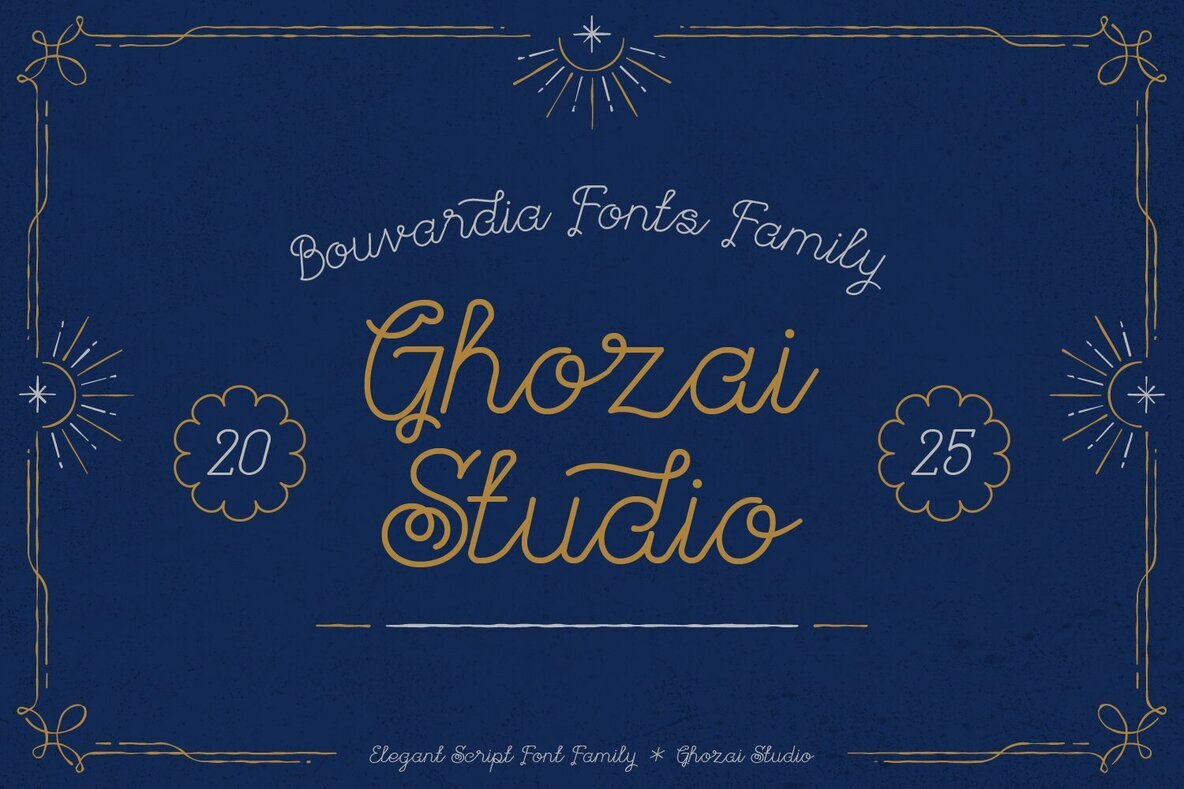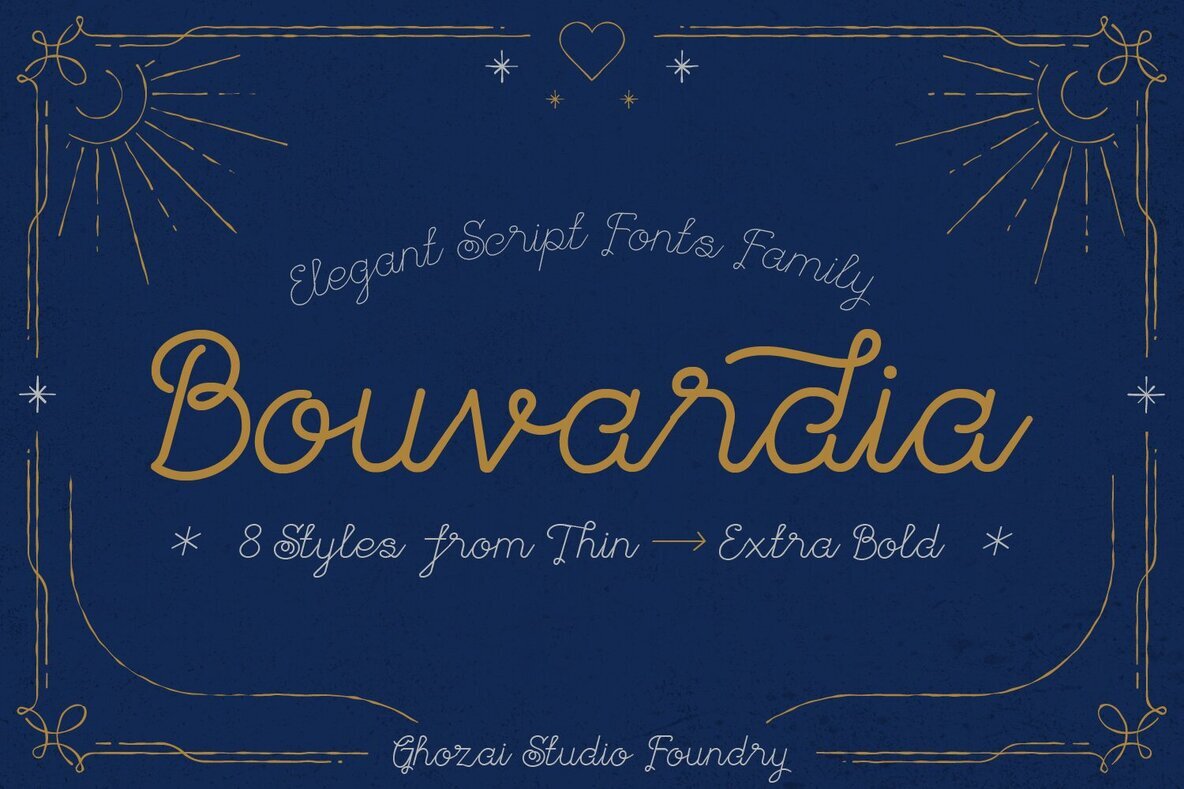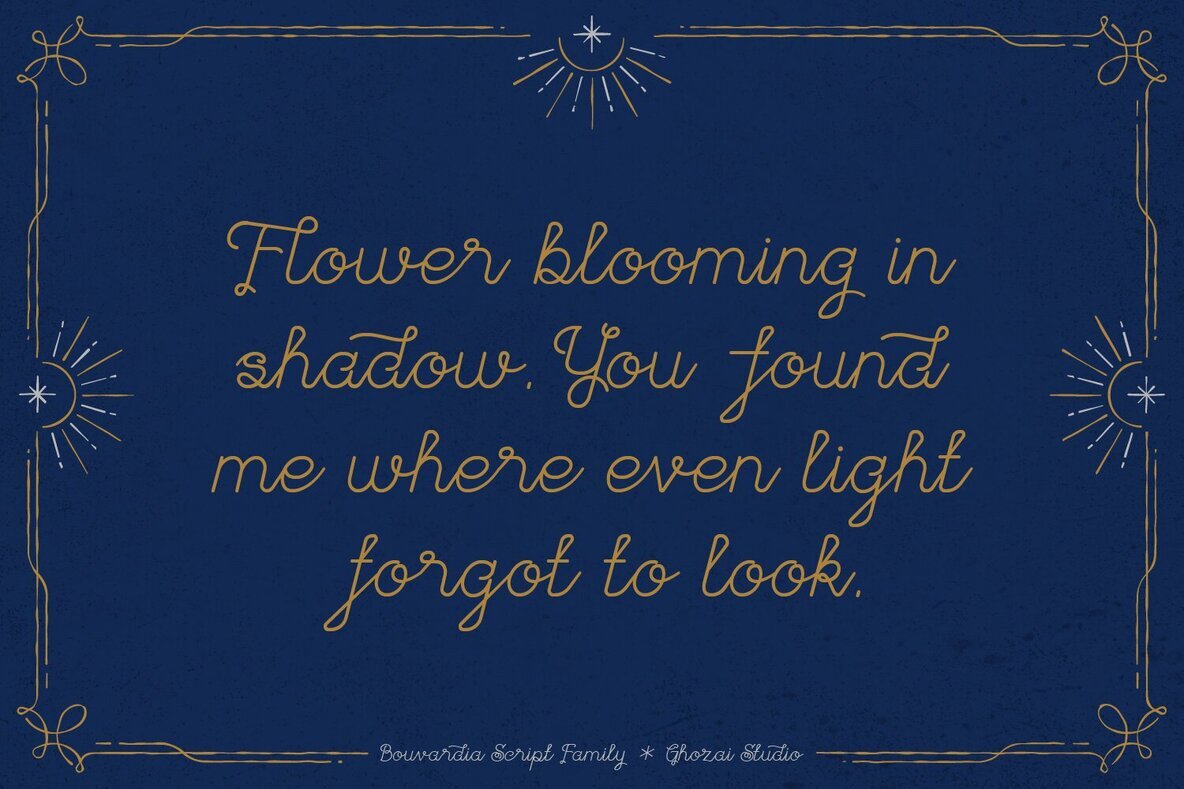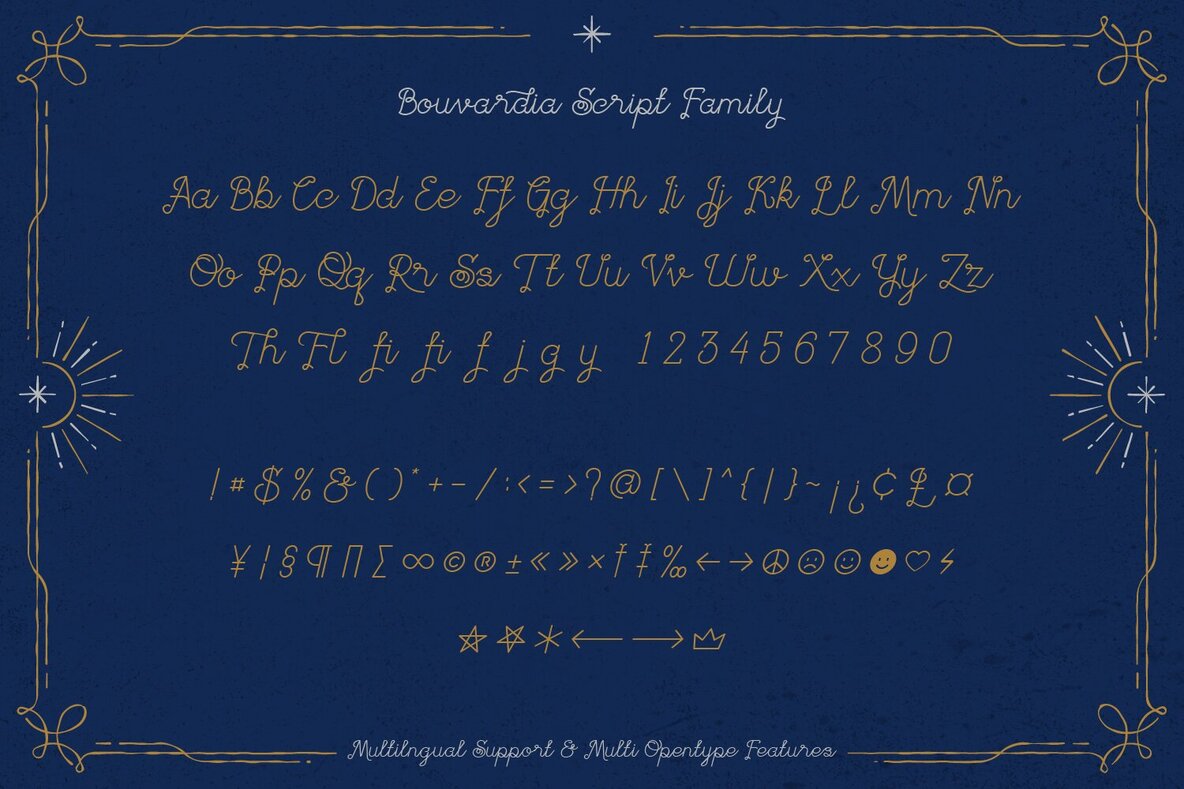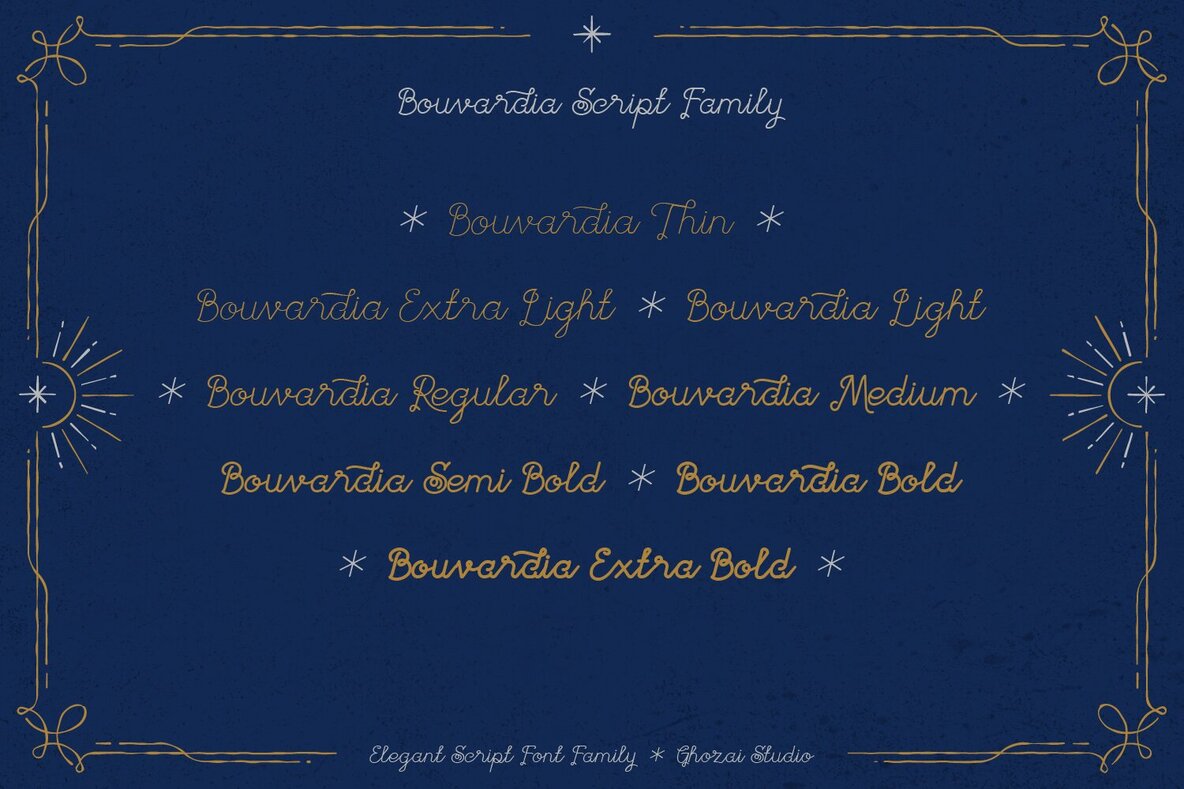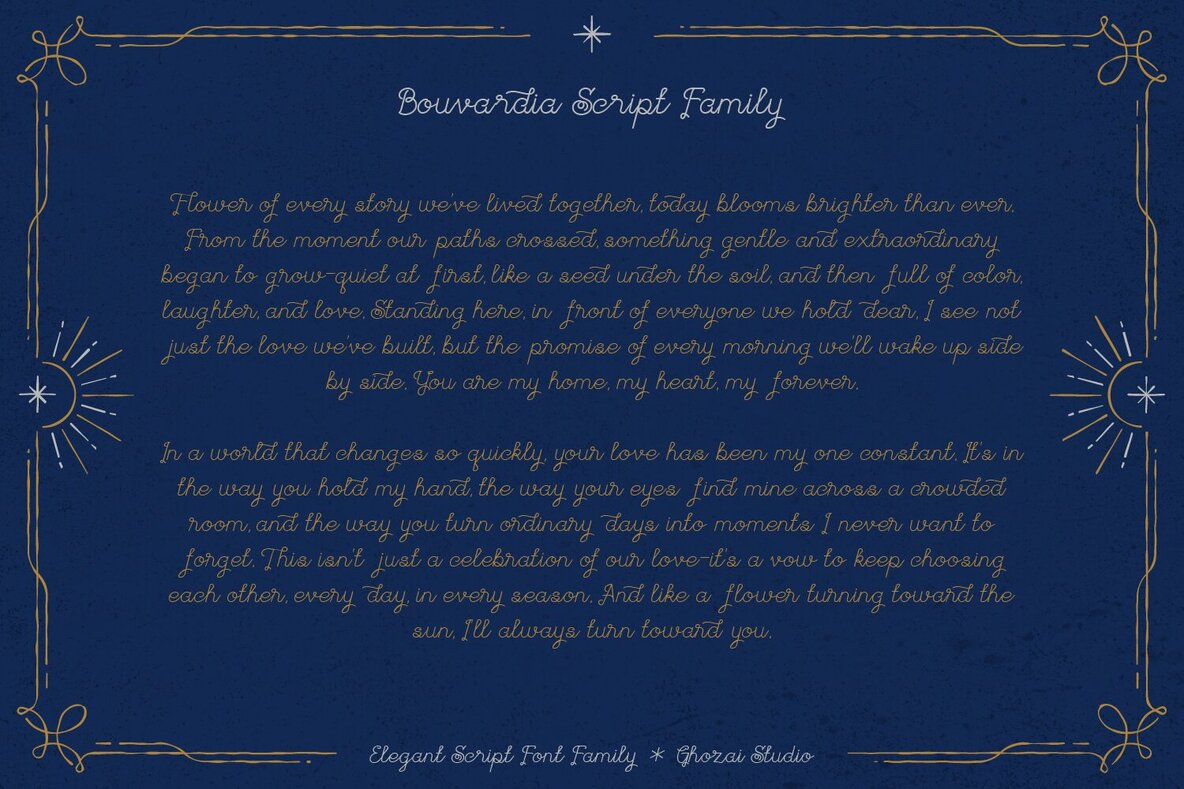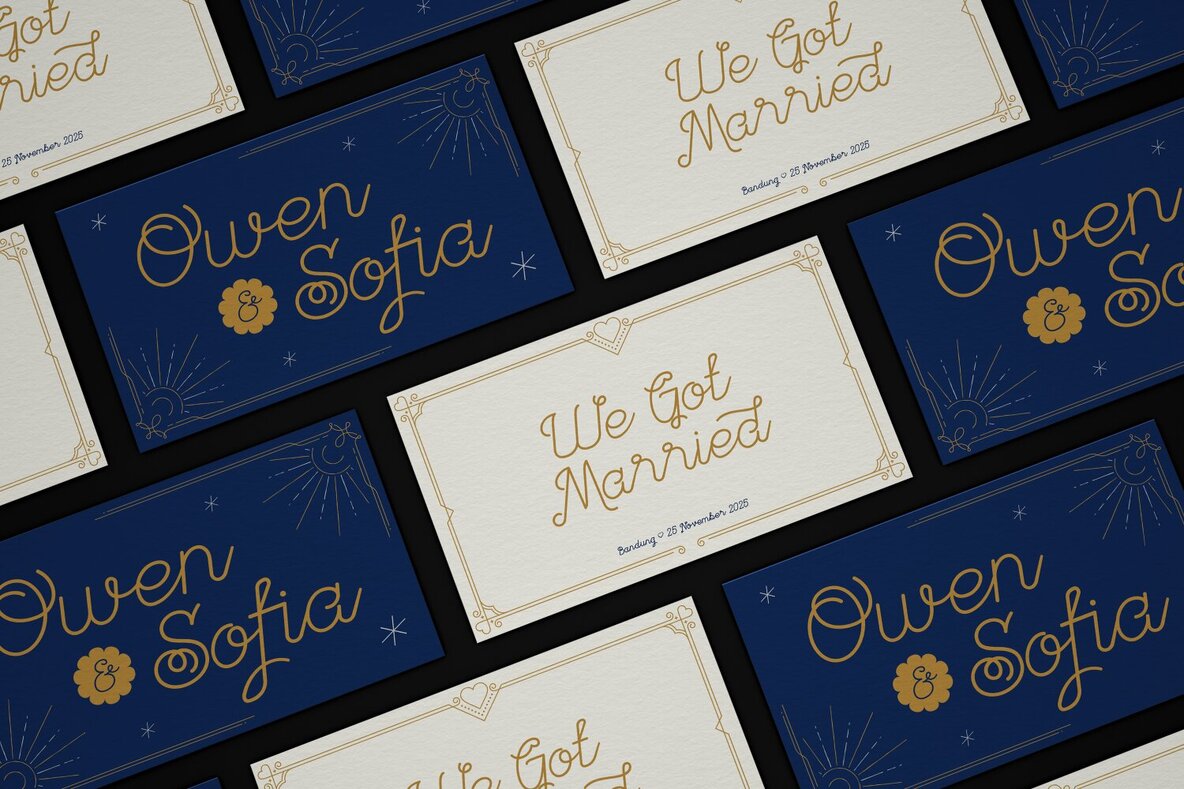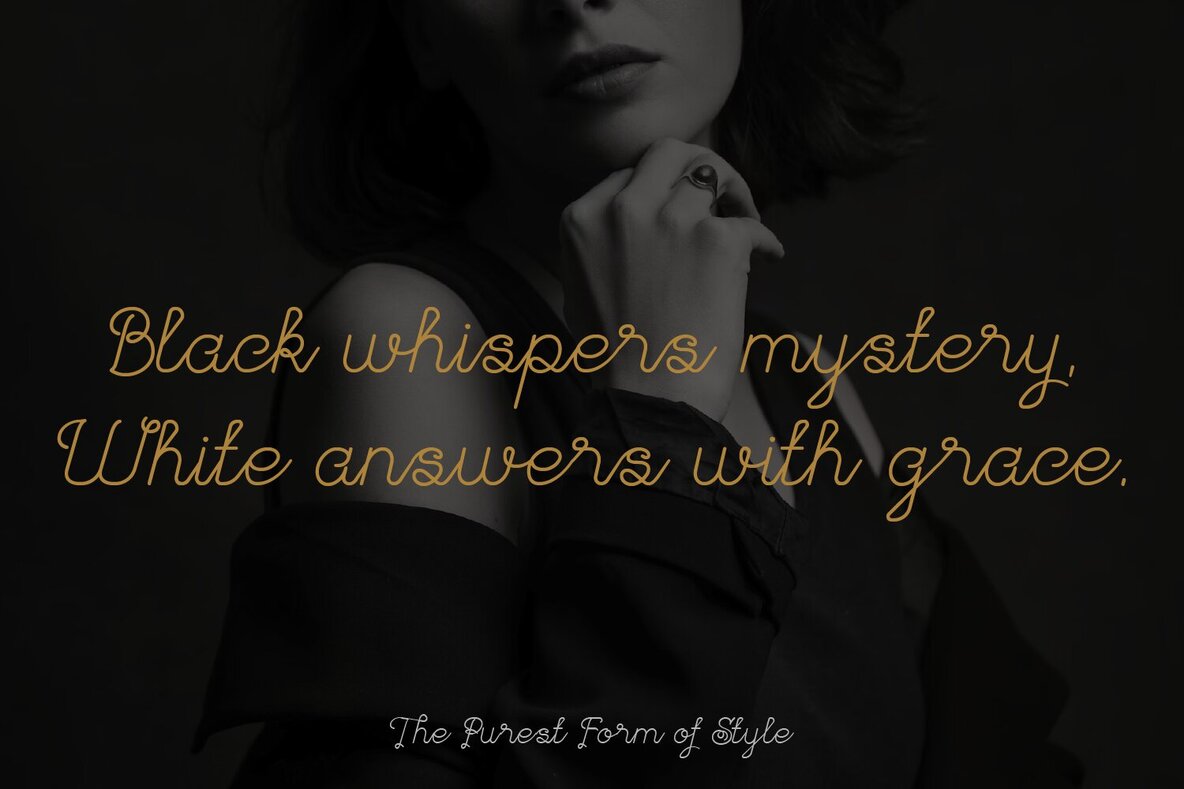
Bouvardia Font
Bouvardia is a meticulously crafted handwritten script font, infusing a warm, personal touch into your design projects. With its spectrum of styles from thin to extrabold, it provides options for subtle elegance or compelling boldness. Leveraging an array of ligatures and alternate stylistic sets, Bouvardia achieves an authentically handwritten aesthetic that infuses personality into every letter.Bouvardia: The Quintessential Handwritten Script
Bouvardia is the epitome of handwritten charm, seamlessly integrating into any design where a genuine, expressive voice is desired.